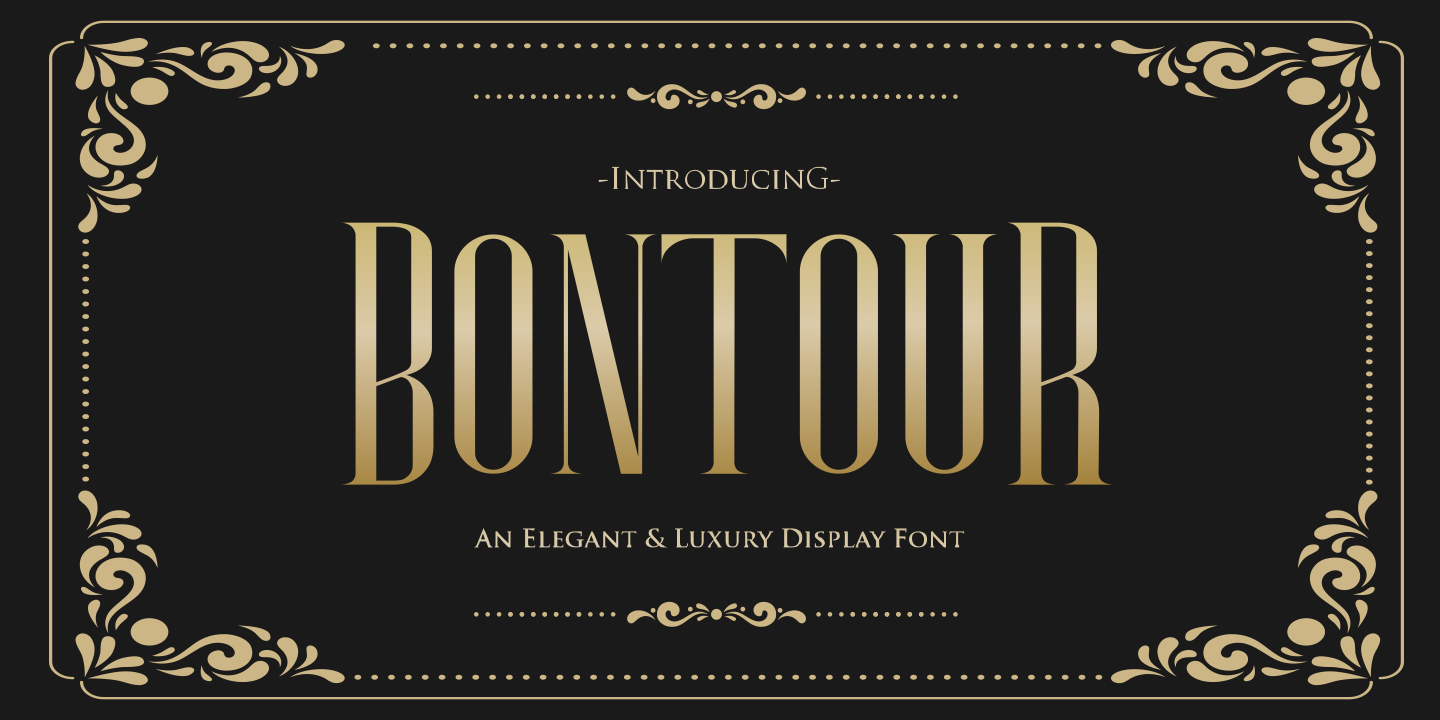
The Bontour Font is perfect for travel agency branding, tourism marketing campaigns, destination resort communications, adventure tour promotions, hospitality industry designs, vacation rental advertising, cultural exchange programs, and wanderlust-inspired editorial layouts. This versatile typeface excels in travel companies, tourism boards, hospitality brands, adventure tour operators, and any organization seeking to communicate exploration, cultural discovery, and the joy of travel experiences in their visual communications.
What makes Bontour Font so exciting is its adventurous, welcoming character that perfectly captures the essence of travel excitement and cultural exploration while maintaining exceptional readability and contemporary functionality. The font features friendly letterforms with journey-inspired curves, welcoming proportions, and distinctive details that evoke the thrill of discovering new places and meeting new cultures. Its exploratory design philosophy makes it ideal for brands that want to communicate adventure, hospitality, and the kind of authentic travel experiences that create lasting memories and meaningful connections.
The Bontour Font family includes comprehensive weight variations: Light, Regular, Medium, Semi Bold, Bold, and Black versions, each available in upright and italic styles. Additionally, it offers travel-inspired alternates, cultural decorative elements, and journey flourishes that enhance the font's adventurous appeal. The family includes extended character sets with multilingual support and specialized glyphs for tourism and hospitality design applications.
When you choose Bontour Font Free Download, you're investing in a typeface that embodies travel spirit and cultural appreciation while ensuring exceptional functionality across all modern applications. This font seamlessly combines wanderlust aesthetics with contemporary design requirements, making it perfect for both digital platforms and traditional print applications. The carefully crafted letterforms maintain perfect legibility while the distinctive travel qualities create memorable brand experiences that resonate with audiences seeking authentic adventure and cultural exploration opportunities.
Whether you're developing travel brand identities, creating tourism marketing materials, designing hospitality communications, or establishing a visual identity that celebrates cultural discovery and travel adventures, this font delivers outstanding warmth and exploratory appeal. The Bontour Font transforms your content into inspiring communications that capture the excitement of travel and reinforce your brand's commitment to creating exceptional journey experiences and meaningful cultural connections.